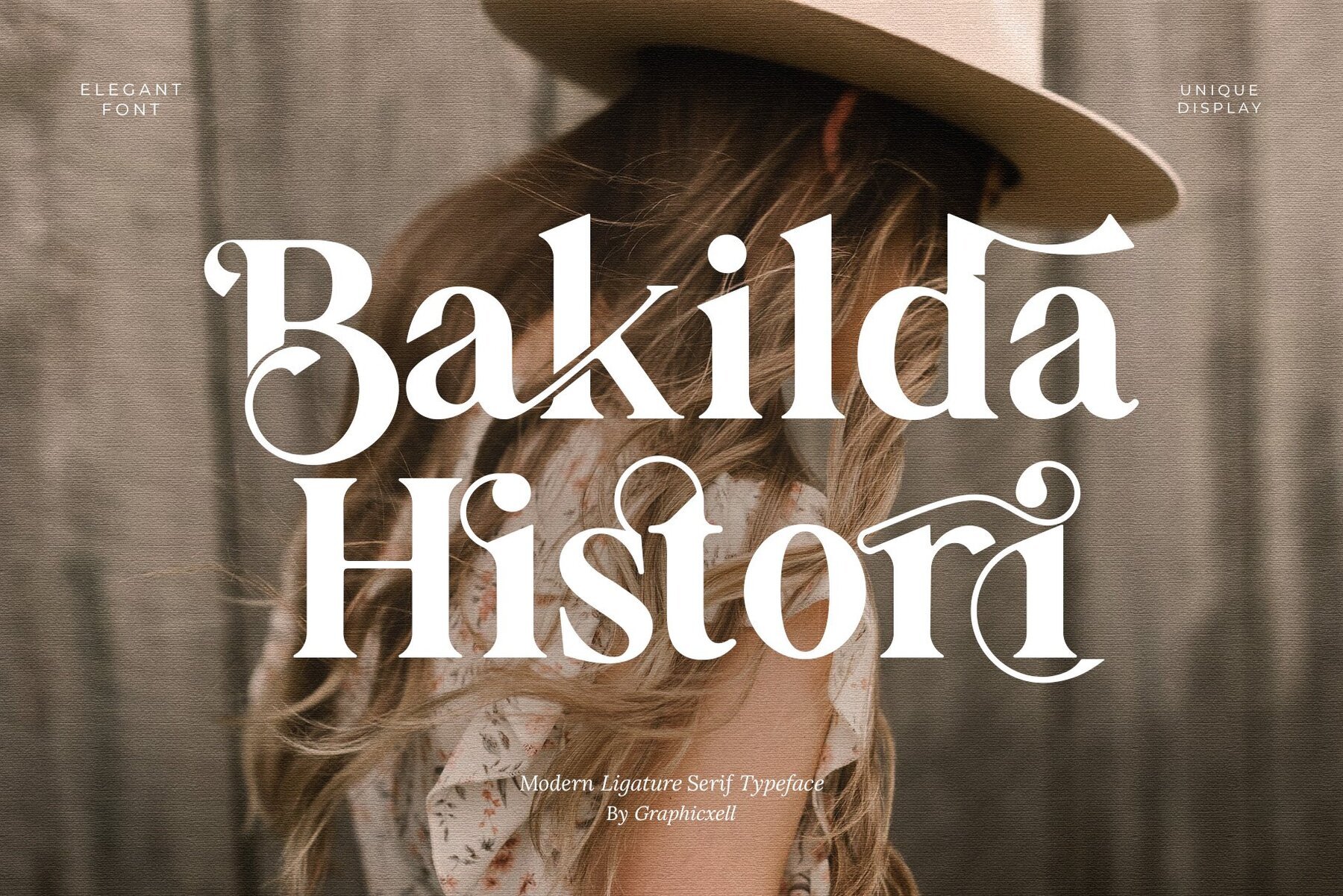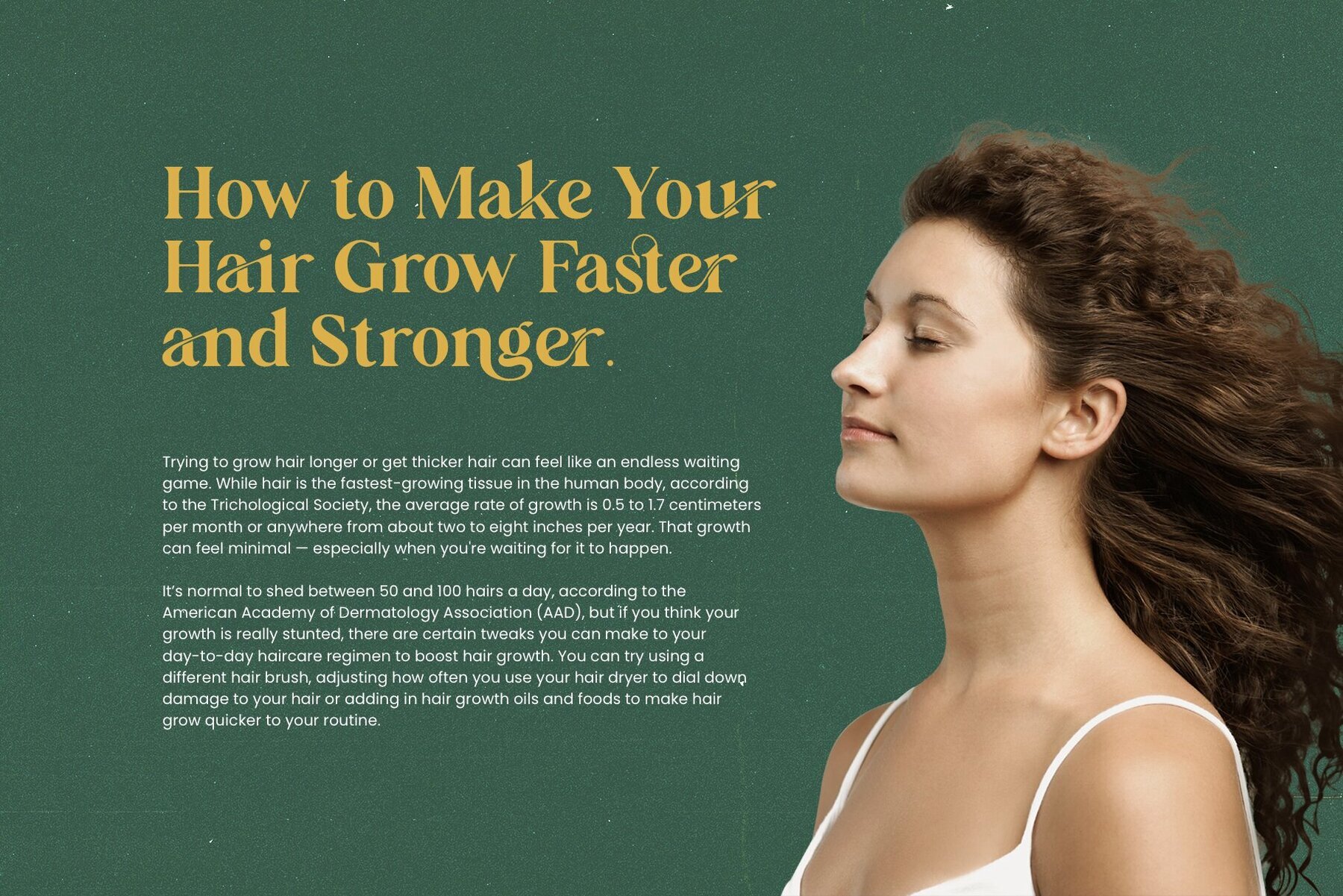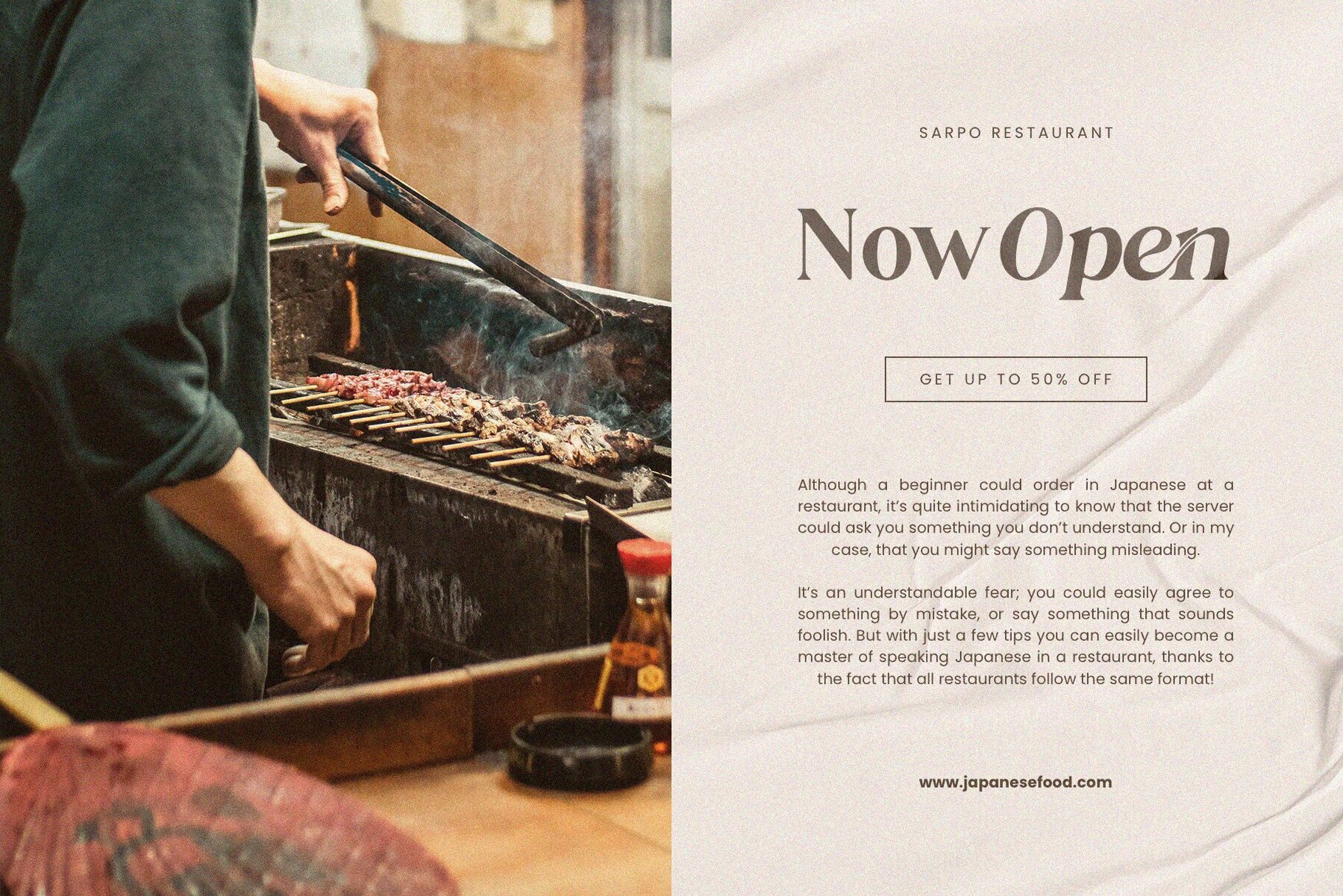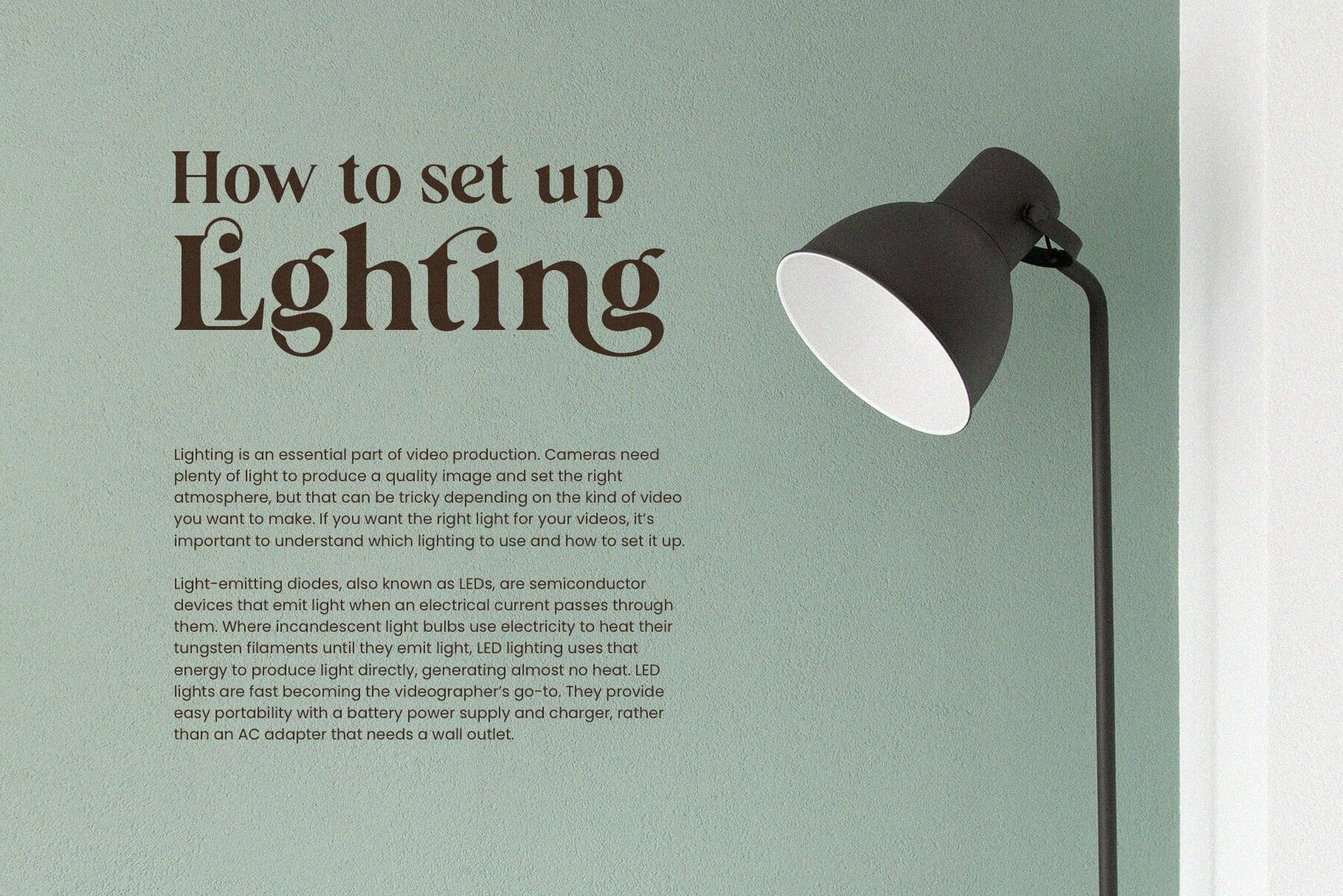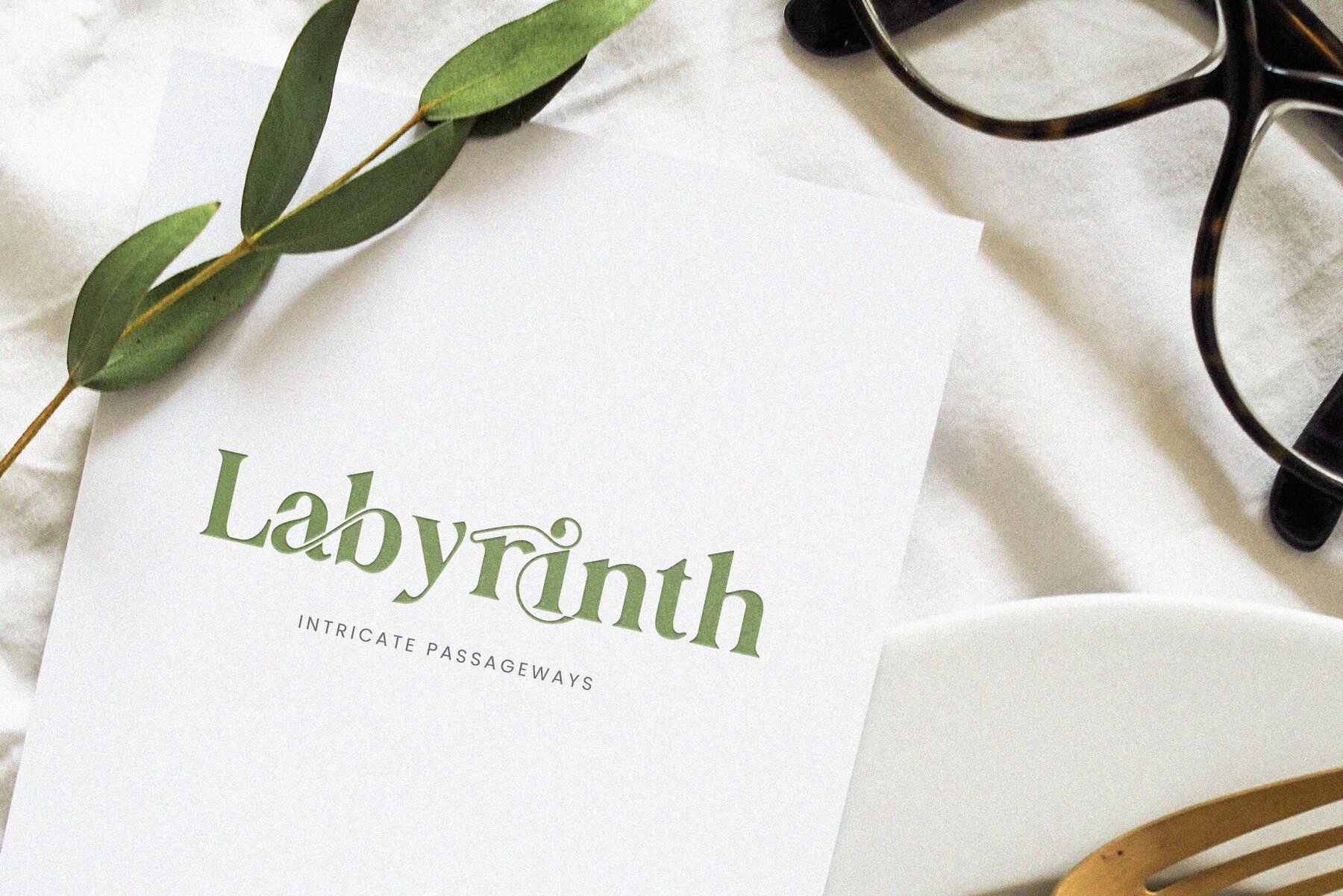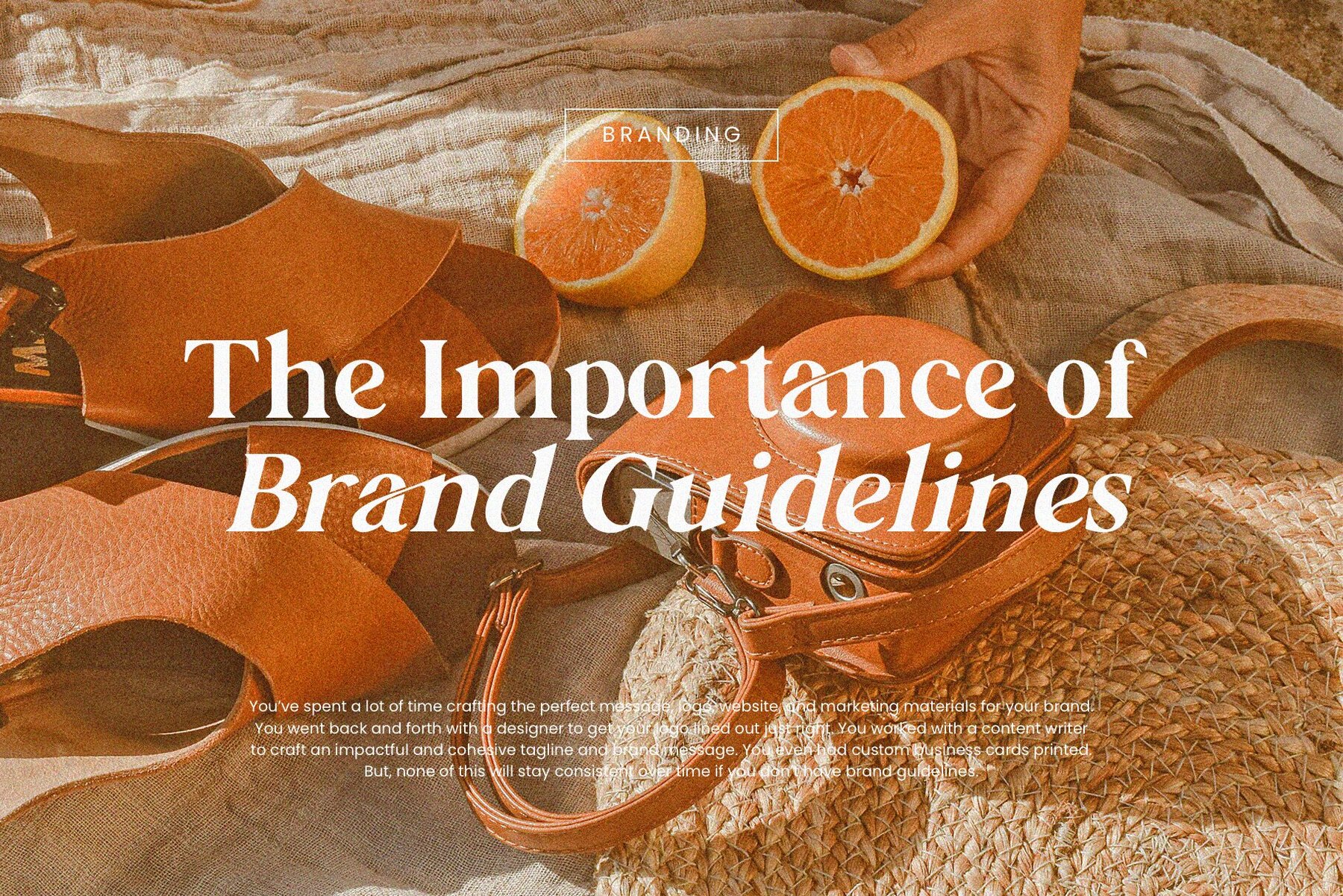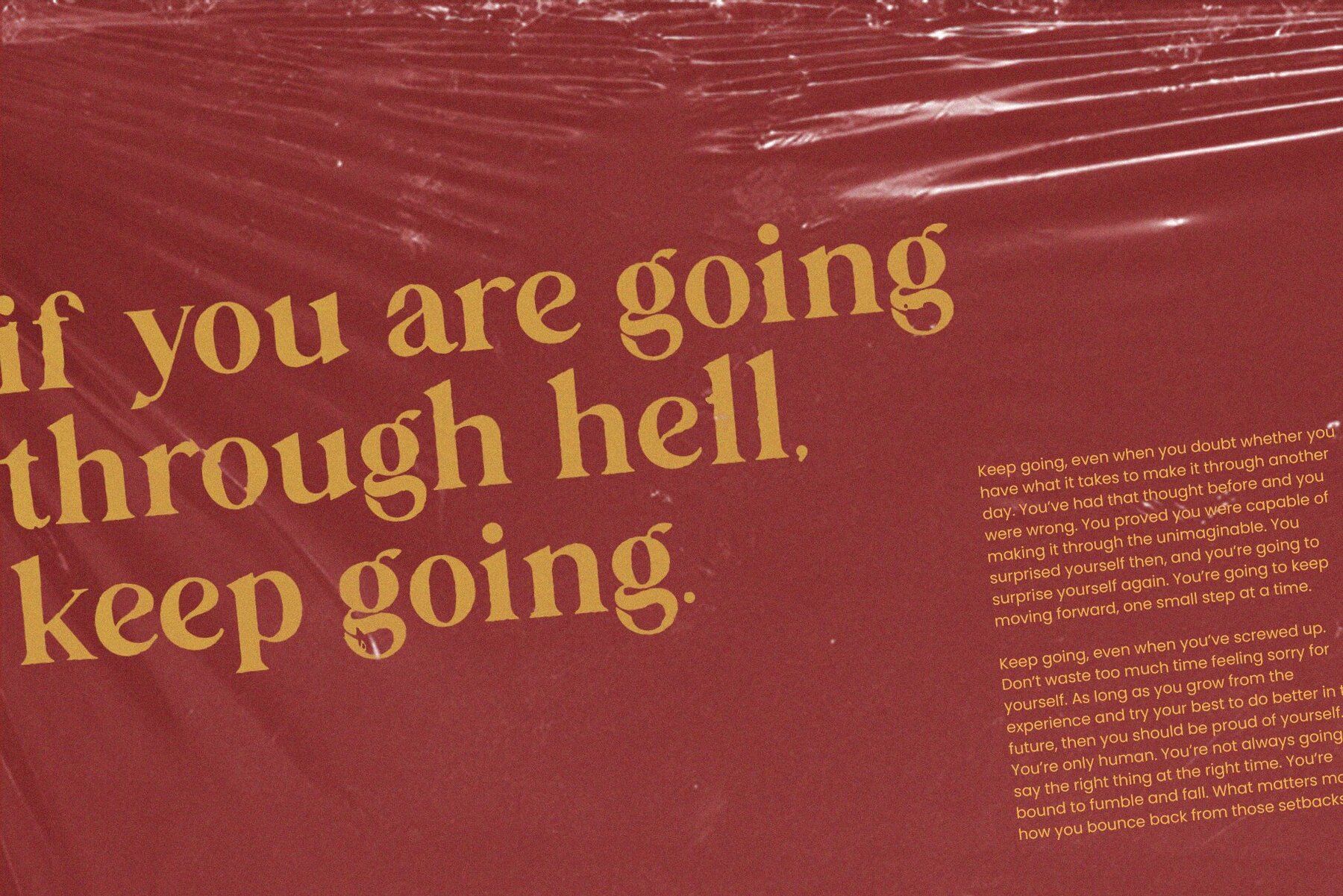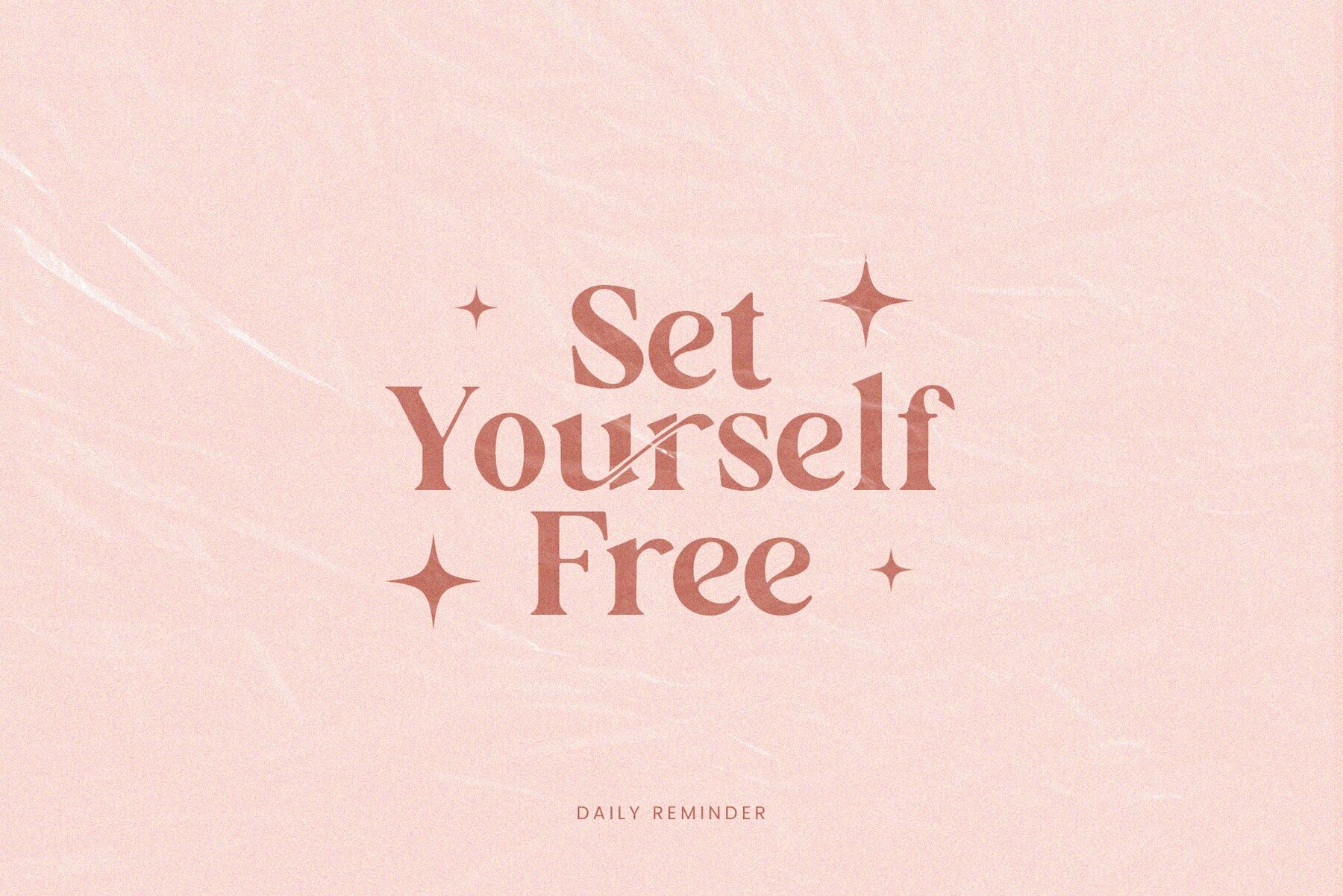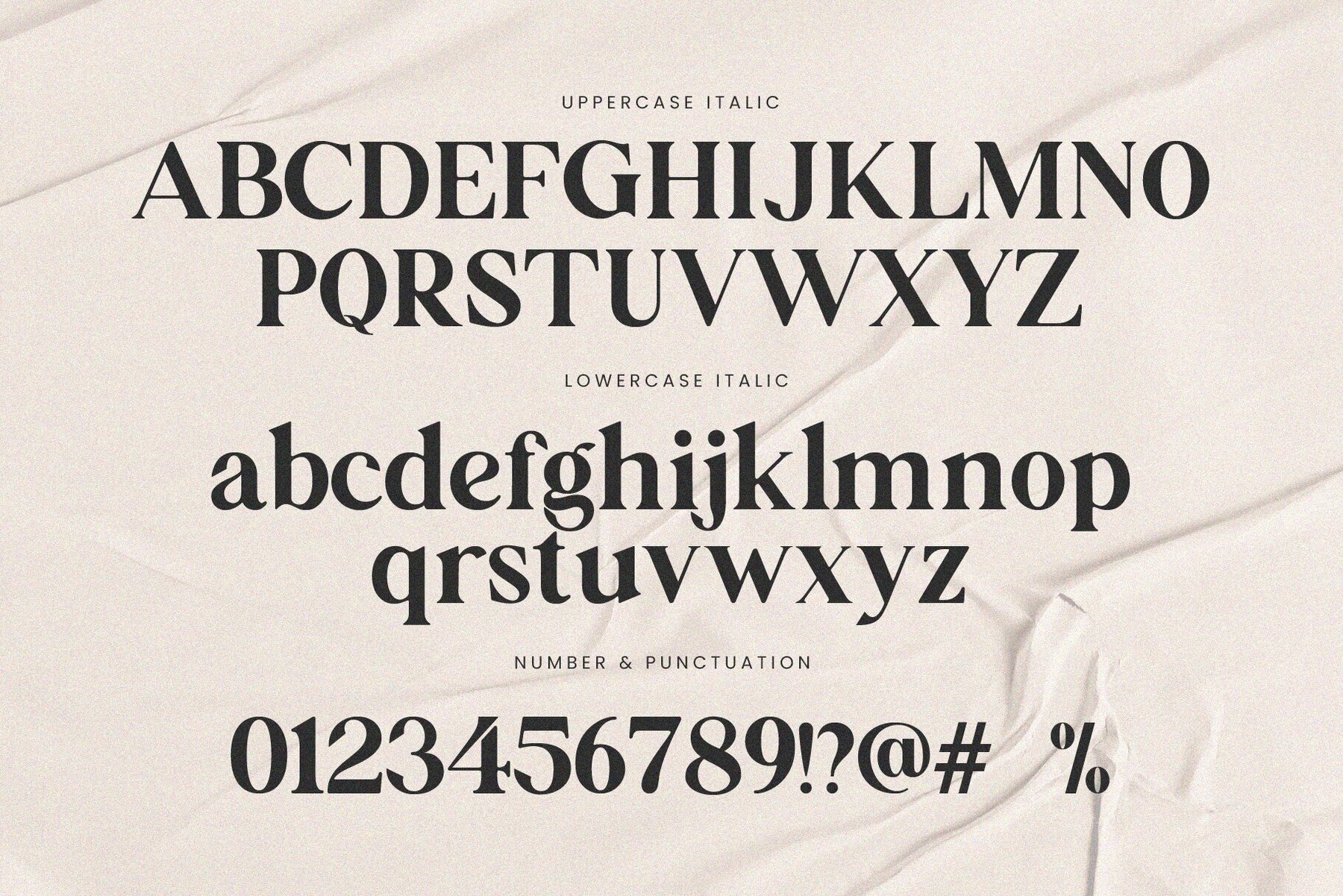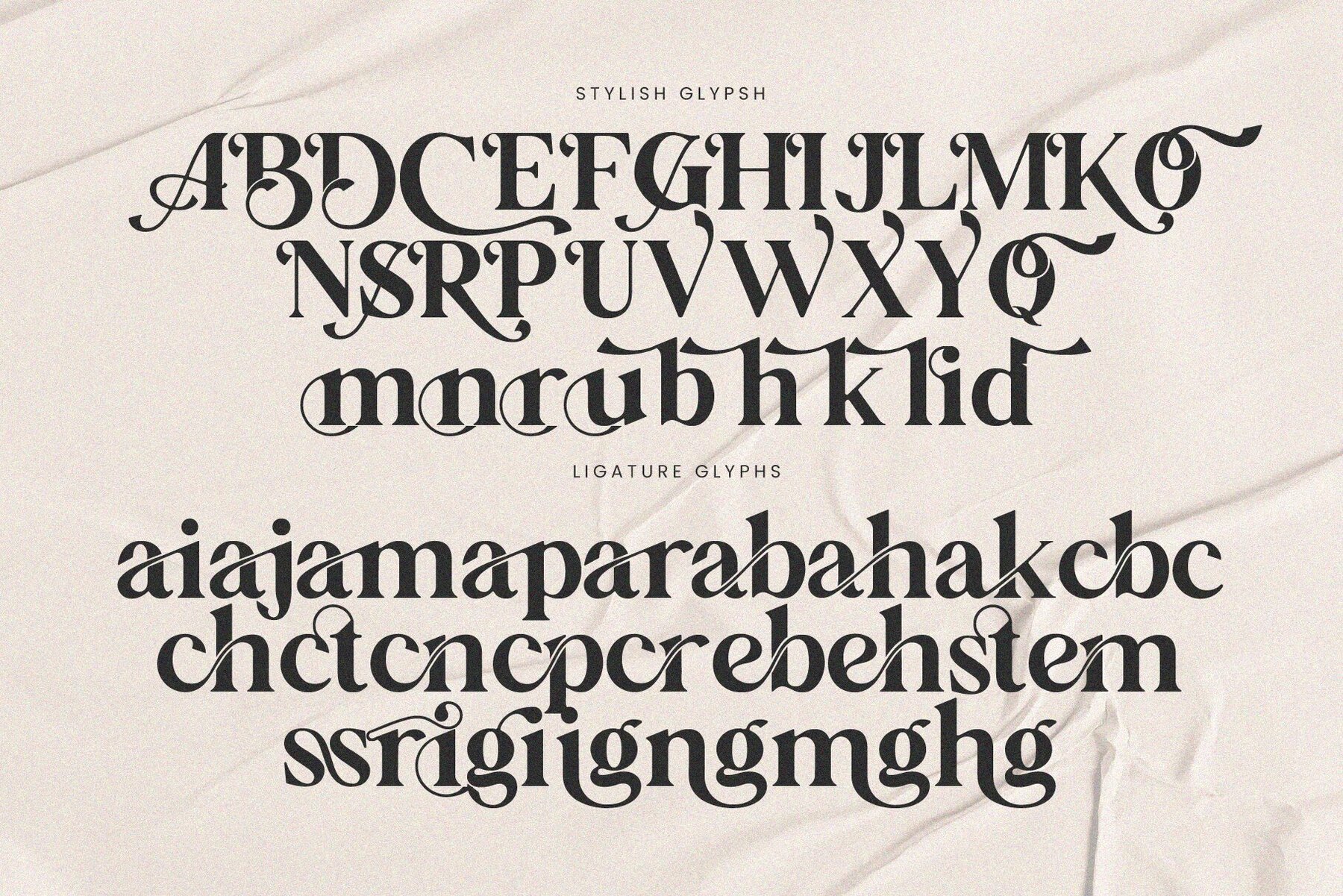
Bakilda Histori Font
Bakilda Histori, presented by Graphicxell, draws inspiration from iconic minimalist logos to offer designers a versatile tool ideal for various creative projects. This typeface is perfect for crafting elegant templates, branding materials, and more.Bakilda Histori: Minimalist Typeface for Versatile Design